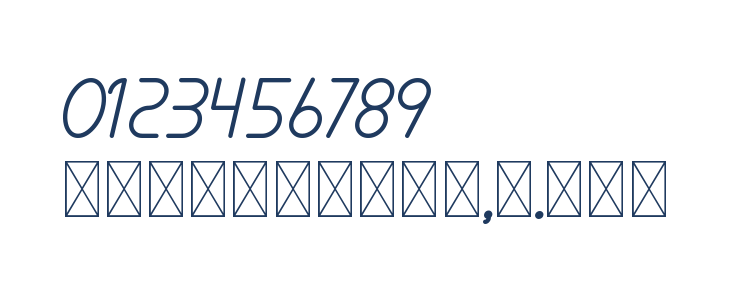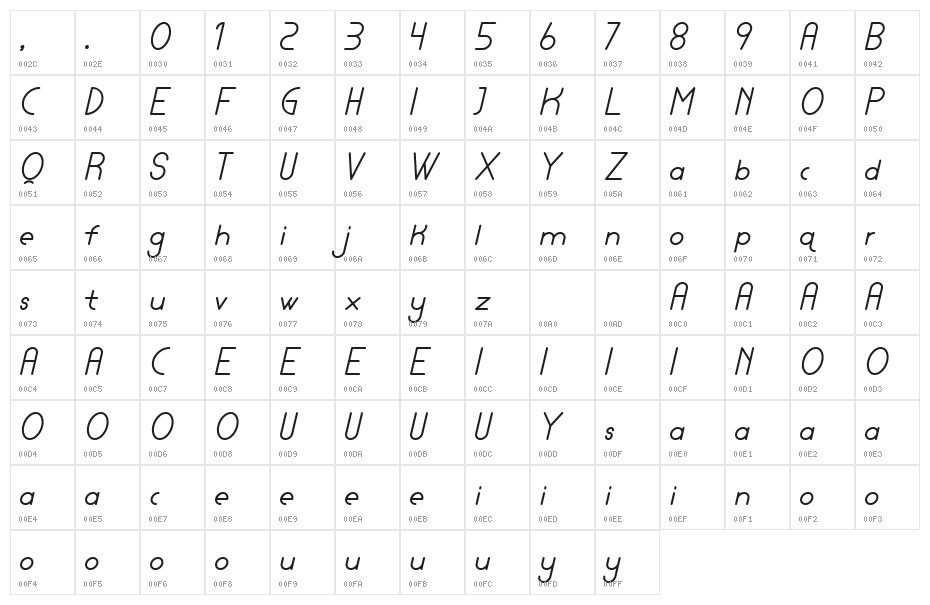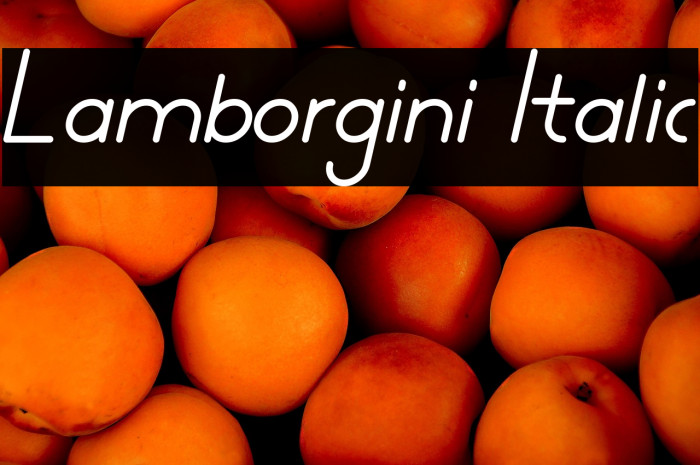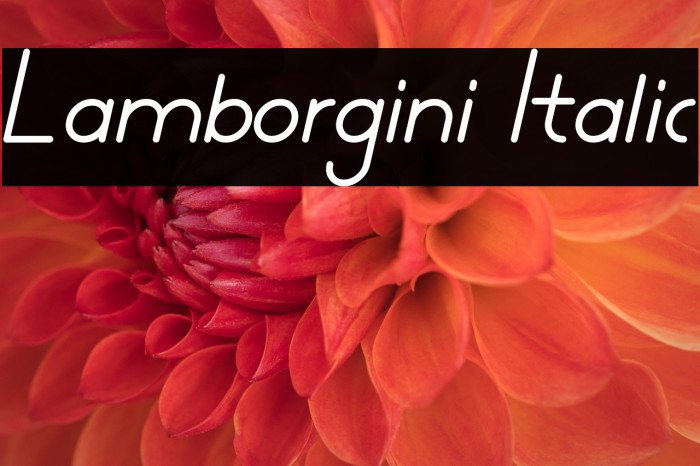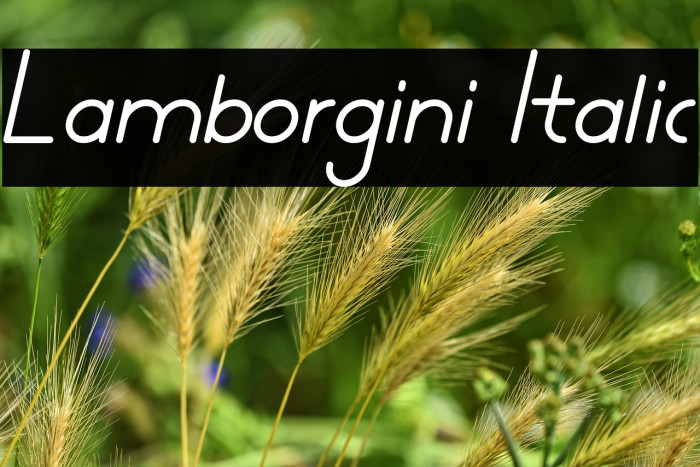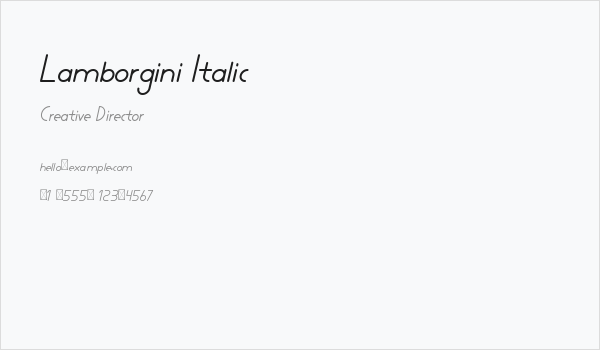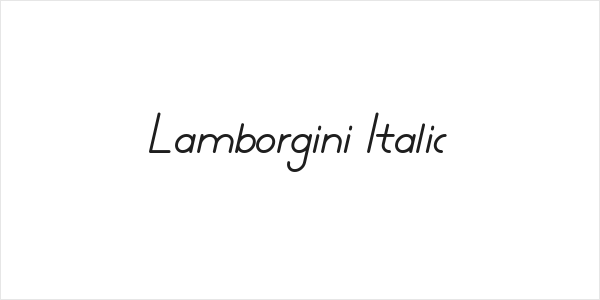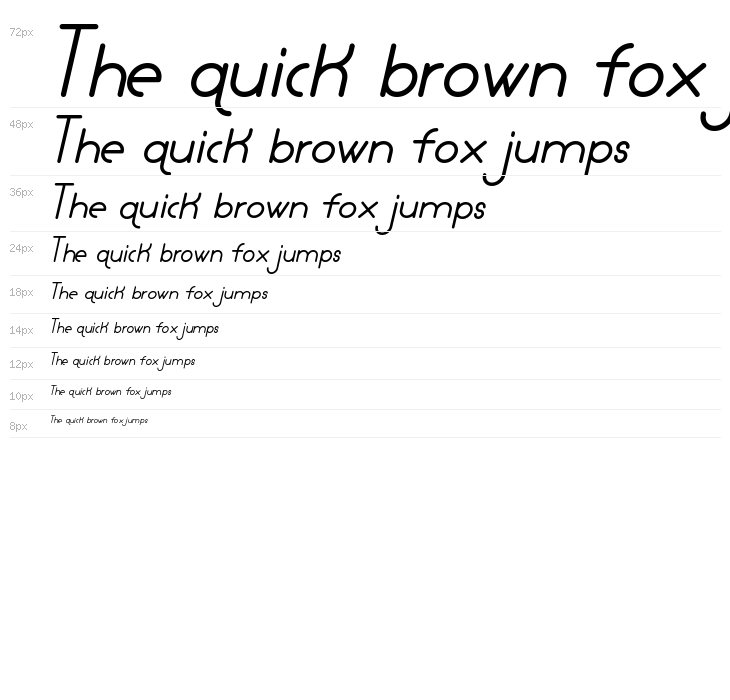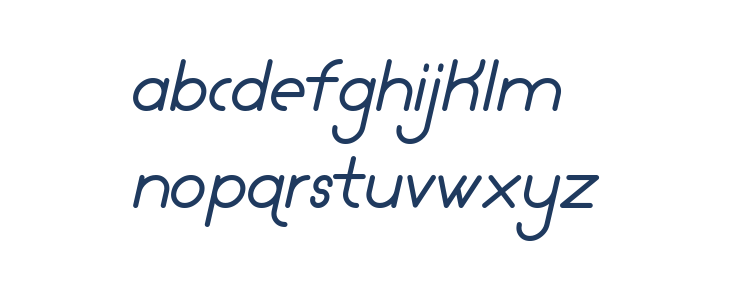
Lamborgini Italic Font
Lamborgini Italic Description
This font exhibits a sleek and modern design with a slight italic slant, giving it a dynamic and forward-moving appearance. The characters are crafted with smooth, continuous strokes that create a sense of fluidity and elegance. The uppercase letters maintain a consistent height, while the lowercase letters offer a harmonious balance with their rounded forms. The numerals are clear and legible, matching the overall style of the alphabet. The font's simplicity and clean lines make it versatile for various applications, while its italic nature adds a touch of sophistication.